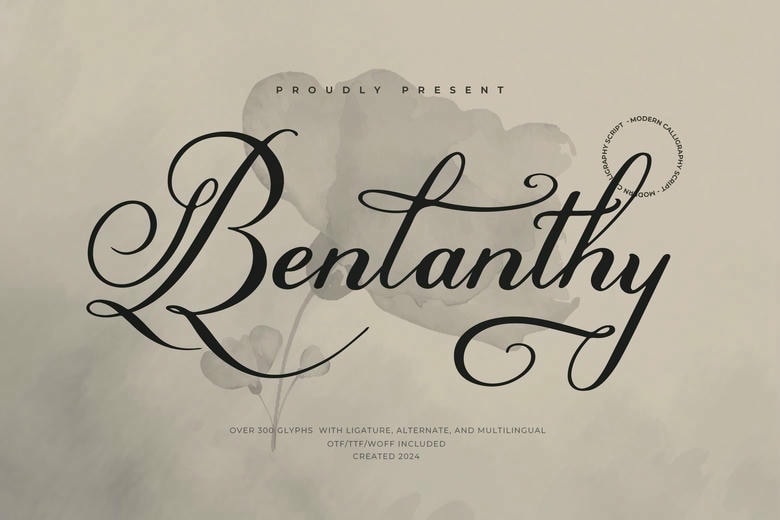
Benlanthy Font
It is a modern calligraphy font with touch of elegance for this modern world and it’s called Benlanthy. It has flowing and smooth letters that make it suitable for invitations, logos and any type of decoration. The font is very elegant and artistic and can therefore be used to create beautiful cursive type of texts.
Benlanthy Calligraphy Script Font